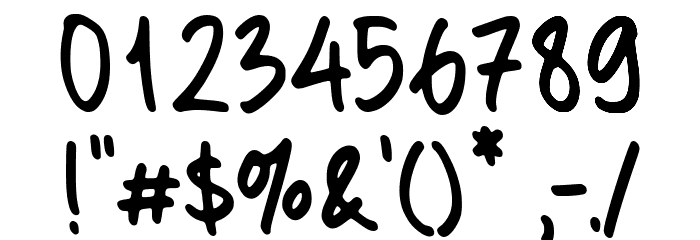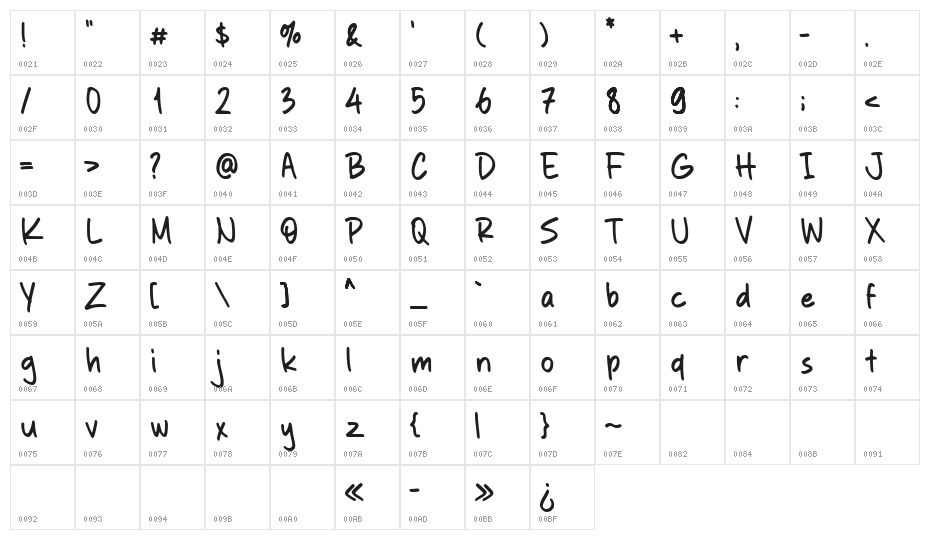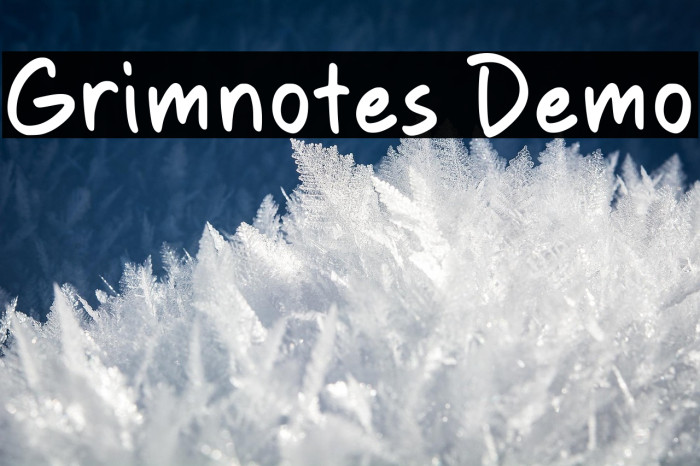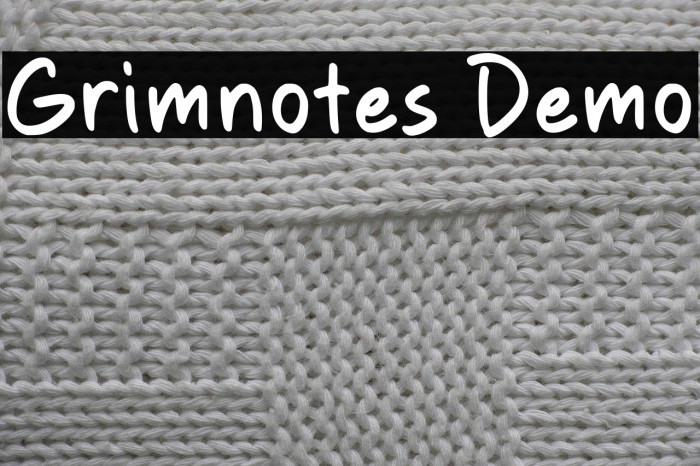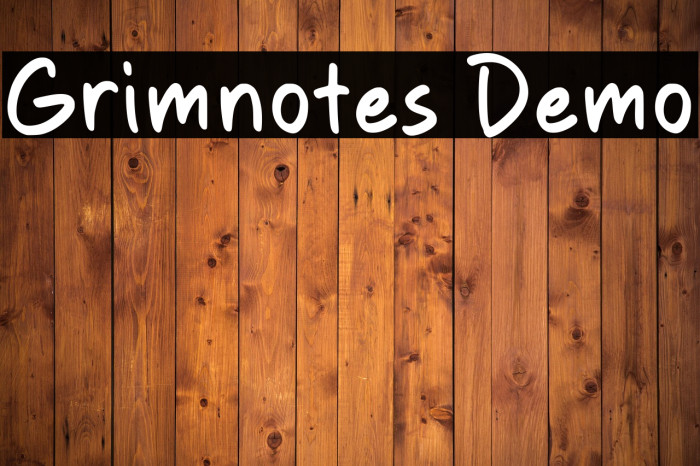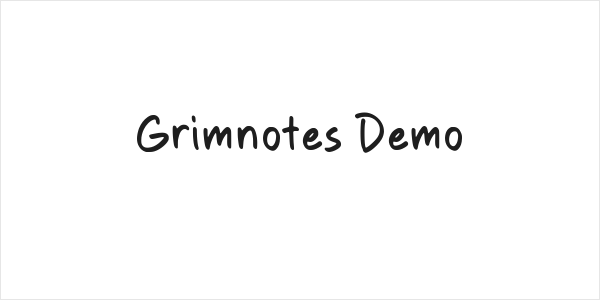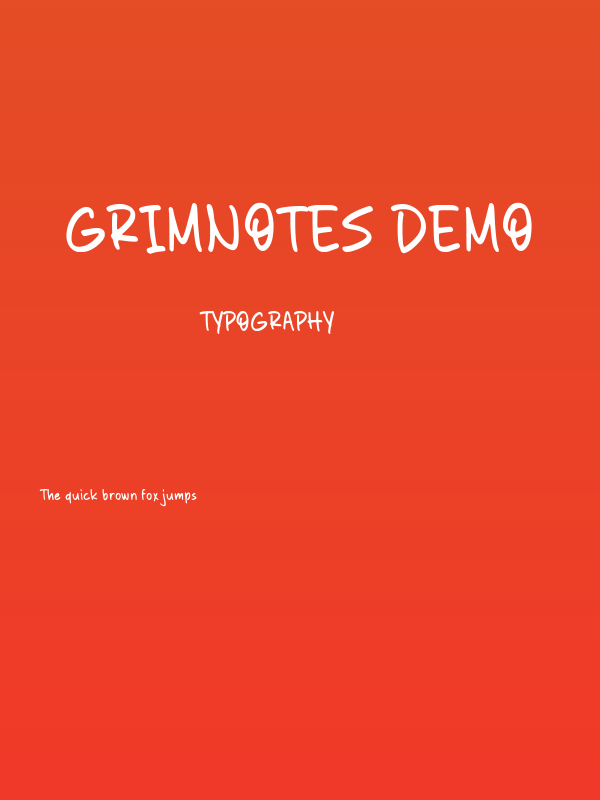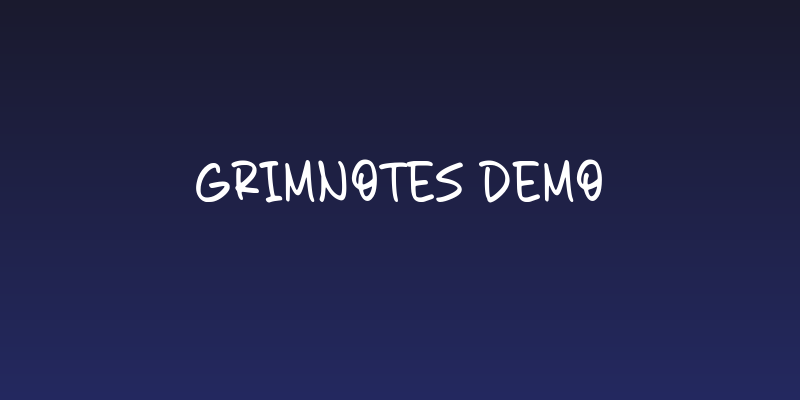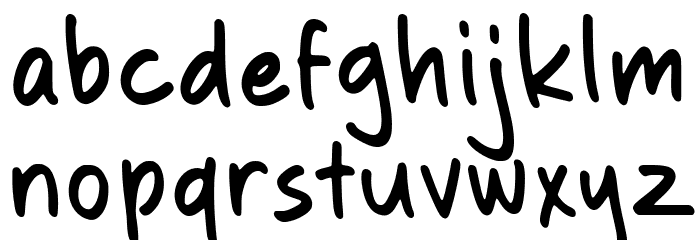
Grimnotes Demo Font
Grimnotes Demo Description
This font features a playful and casual handwritten style, characterized by its smooth, rounded strokes and slightly irregular letterforms. The uppercase and lowercase letters maintain a consistent flow, giving it an approachable and friendly appearance. The numerals and special characters are crafted with the same informal touch, making them blend seamlessly with the alphabet. The overall design is reminiscent of natural handwriting, which adds a personal and authentic feel to any text. This font is ideal for projects that require a human touch, such as personal notes, invitations, or creative branding.
| Use Case | Logos, Invitations, Personal notes |
| Proposed Projects | Ideal for personal notes, invitations, creative branding, and any project needing a human touch. |